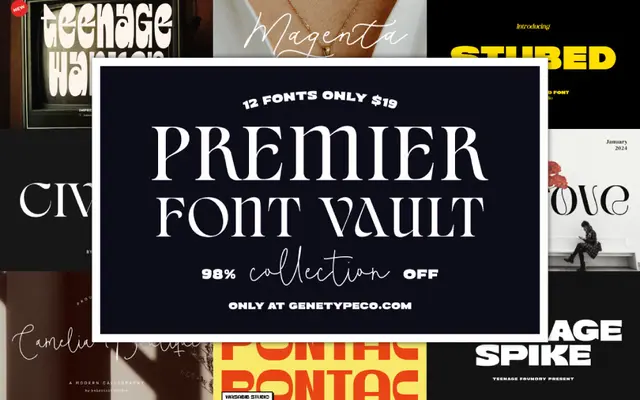
Premier Font Vault Collection
Prioritype · 2024
A discounted bundle of twelve mixed-style display typefaces aimed at branding, logo and fashion design work.
Twelve typefaces sold together at a steep discount, covering decorative serifs, display scripts and assorted novelty styles. The collection is positioned at designers who want a broad toolkit for branding and print without spending heavily. Quality and consistency vary considerably across the included faces, and the bundle-discount framing is characteristic of volume-over-craft releases.
The collection contains twelve typefaces spanning serifs, sans-serifs, scripts and display styles, making a single category classification impossible; display bundle is the most accurate umbrella term given the decorative, branding-oriented nature of the majority.